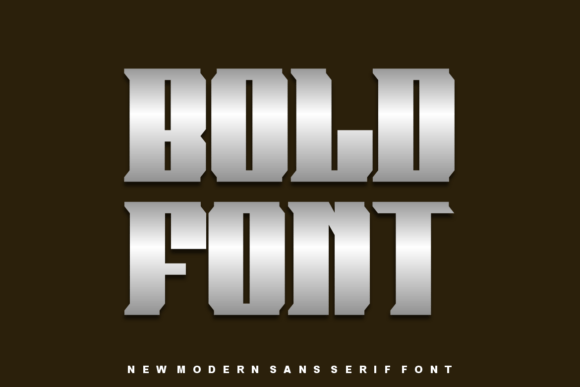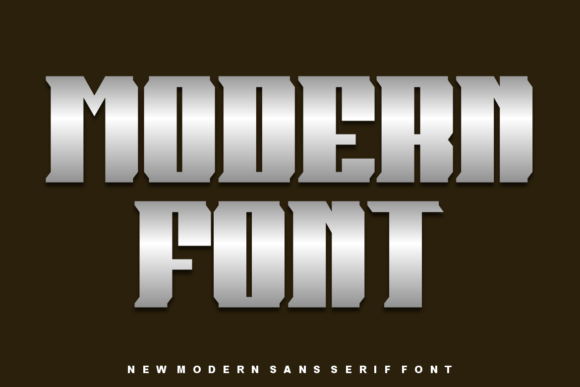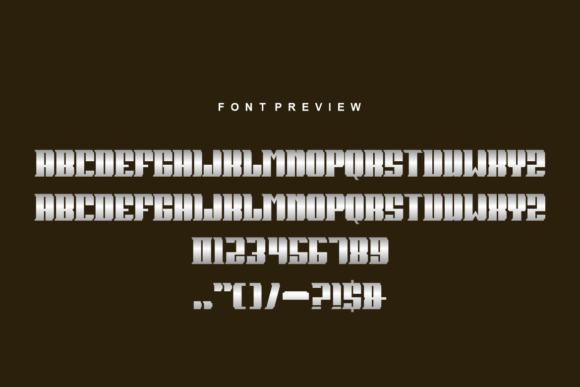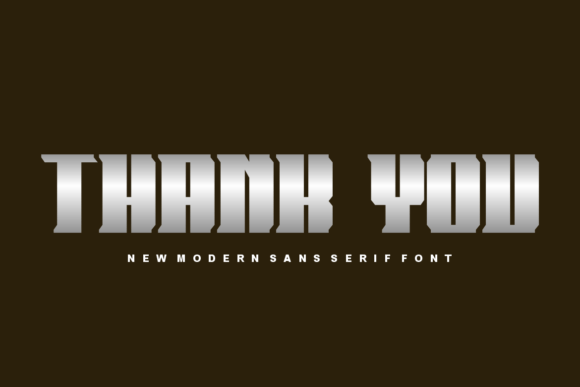
The Power of Bosener Font: A Designer’s Best Friend
I still remember the time I was working on a project for a client who needed a bold and eye-catching font for their poster design. I had spent hours browsing through font libraries, but nothing seemed to fit the bill. That was when I stumbled upon Bosener Font, and it instantly became my go-to choice. Its thick letters and strong lines made it easy to read and perfect for grabbing attention. In this article, I’ll share my experience with Bosener Font, its features, and how to make the most of it in your designs.
An Honest Review of Bosener Font
- ✨ Bold and blocky design: Bosener Font is perfect for headlines and titles, making it ideal for posters, banners, and anything that needs a powerful look.
- ✅ Easy to read: The thick letters and strong lines make it easy to read, even from a distance.
- ✅ Versatile: Bosener Font can be used for a variety of design projects, from digital to print.
While Bosener Font is an excellent choice for many design projects, there are a few quirks to keep in mind:
- 🤔 Limited font styles: Bosener Font currently only comes in a single style, which may limit its use for projects that require multiple font variations.
- ⚠️ Not suitable for body text: Due to its bold design, Bosener Font is not ideal for body text or long paragraphs.
The Backstory of Bosener Font
Bosener Font was designed with the goal of creating a bold and eye-catching font for headlines and titles. Its designer drew inspiration from industrial and architectural typography, aiming to create a font that would stand out in any design. The result is a font that is both strong and elegant, perfect for grabbing attention and making a statement.
| Font Name | Bosener Font |
| Author | artchiles design |
Q: What is Bosener Font best used for?
A: Bosener Font is best used for headlines, titles, posters, banners, and any design project that requires a bold and eye-catching font.
Q: Can I use Bosener Font for body text?
A: No, Bosener Font is not suitable for body text or long paragraphs due to its bold design.
Q: Is Bosener Font available in multiple styles?
A: Currently, Bosener Font is only available in a single style.